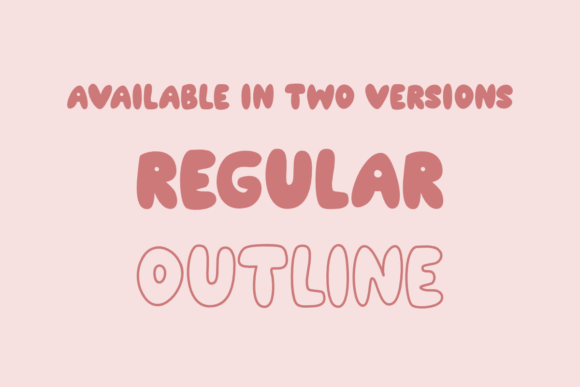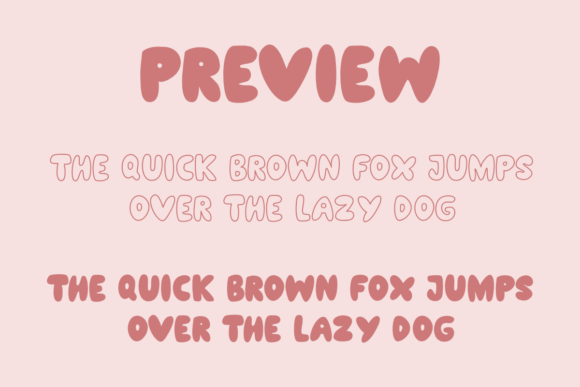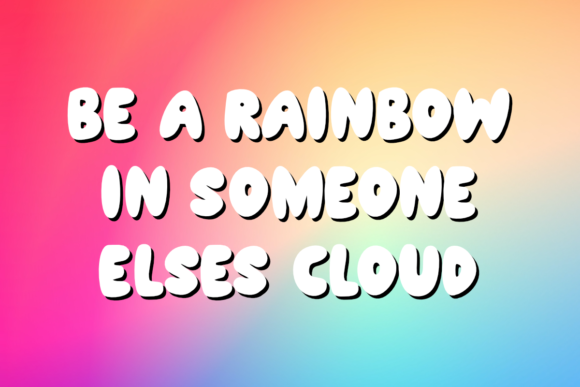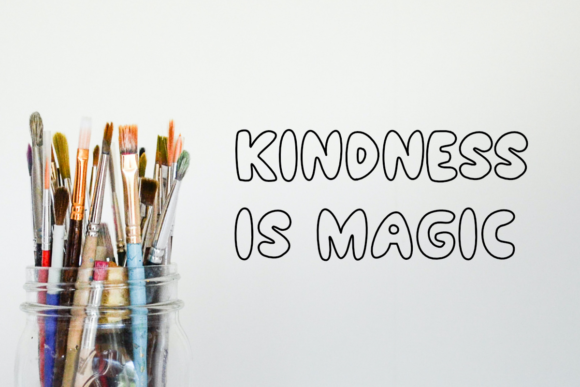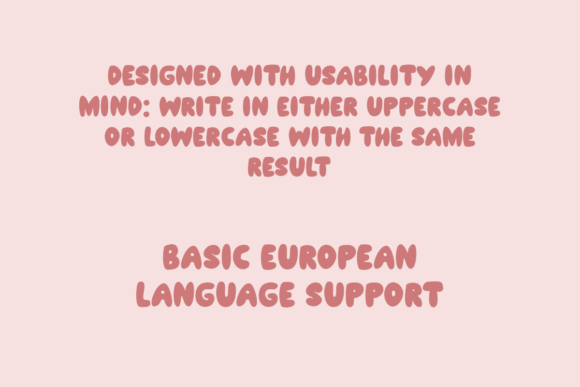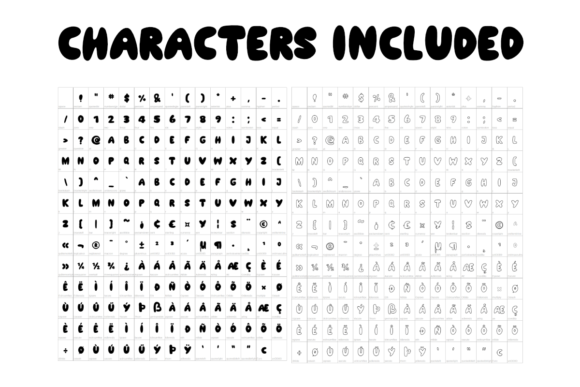
Bubbly Rainbow Font: The Perfect Choice for Fun and Playful Designs
Are you looking for a font that embodies playfulness and authenticity? Look no further than Bubbly Rainbow, a cute, friendly, and fun-looking display font that’s perfect for any children activity or school project. In this article, we’ll dive into the world of Bubbly Rainbow and explore its features, uses, and benefits for designers and crafters.
What is Bubbly Rainbow Font?
Bubbly Rainbow is a display font designed to bring a touch of fun and playfulness to any design project. Its cute and friendly appearance makes it an ideal choice for children’s activities, school projects, and any other design that requires a lighthearted and approachable tone. The font’s unique and colorful design is sure to capture the attention of your audience and leave a lasting impression.
Features of Bubbly Rainbow Font
Bubbly Rainbow font comes with a range of features that make it a versatile and practical choice for designers and crafters. Some of its key features include:
- Cute and Friendly Design: Bubbly Rainbow’s design is inspired by the colors of the rainbow, making it a perfect choice for designs that require a playful and cheerful tone.
- Display Font: Bubbly Rainbow is a display font, making it perfect for headings, titles, and other display text.
- Multilingual Support: The font supports multiple languages, making it a great choice for designers who work with international clients or create content for a global audience.
- Easily Customizable: Bubbly Rainbow font is easily customizable, allowing you to adjust the font size, color, and style to suit your design needs.
Uses of Bubbly Rainbow Font
Bubbly Rainbow font is a versatile font that can be used in a variety of design projects, including:
- Children’s Activities: Bubbly Rainbow is perfect for children’s activities, such as worksheets, coloring pages, and activity sheets.
- School Projects: The font is also great for school projects, such as posters, presentations, and reports.
- Crafting and DIY Projects: Bubbly Rainbow font is a great choice for crafters and DIY enthusiasts who create handmade cards, gift tags, and other paper crafts.
- Digital Designs: The font can also be used in digital designs, such as social media graphics, blog posts, and website headers.
Benefits of Using Bubbly Rainbow Font
Using Bubbly Rainbow font in your design projects comes with a range of benefits, including:
- Instant Recognition: The font’s unique and colorful design makes it instantly recognizable and memorable.
- Emotional Connection: Bubbly Rainbow font helps create an emotional connection with your audience, making your design more engaging and relatable.
Tips for Using Bubbly Rainbow Font
Here are some tips for using Bubbly Rainbow font in your design projects:
- Use it for Headings and Titles: Bubbly Rainbow font is perfect for headings and titles, making it a great choice for display text.
- Experiment with Colors: The font comes in a range of colors, so experiment with different colors to find the one that best suits your design.
- Pair it with Other Fonts: Bubbly Rainbow font can be paired with other fonts to create a unique and visually appealing design.
- Use it for Kids’ Designs: The font is perfect for designs aimed at kids, such as children’s books, activity sheets, and posters.
| Font Name | Bubbly Rainbow Font |
| Author | designavmad |
Bubbly Rainbow font is a fun, playful, and versatile font that’s perfect for designers and crafters who want to add a touch of whimsy to their designs. With its cute and friendly design, multilingual support, and easily customizable features, Bubbly Rainbow font is a great choice for a range of design projects. Whether you’re creating children’s activities, school projects, or digital designs, Bubbly Rainbow font is sure to bring a smile to your audience’s face.